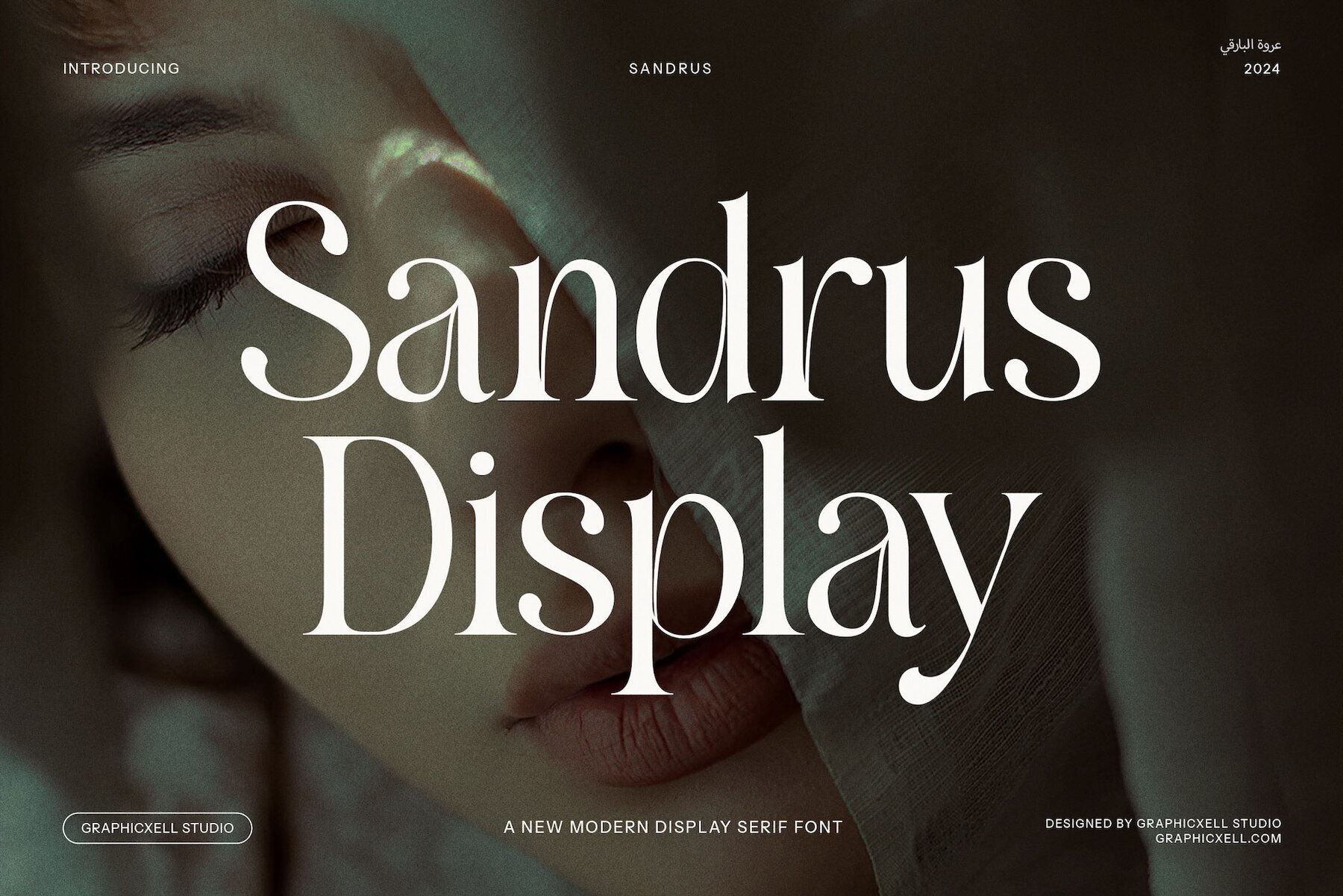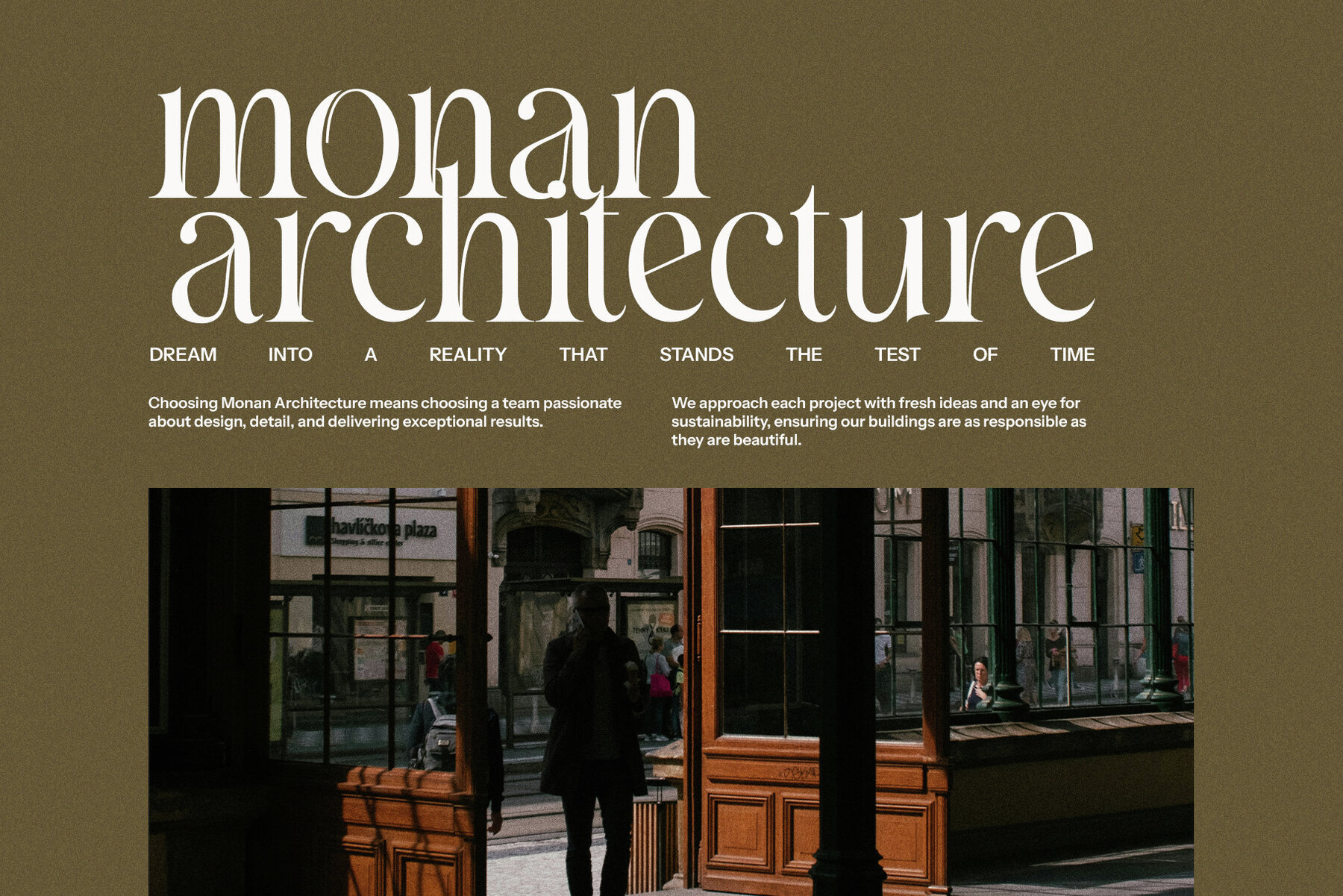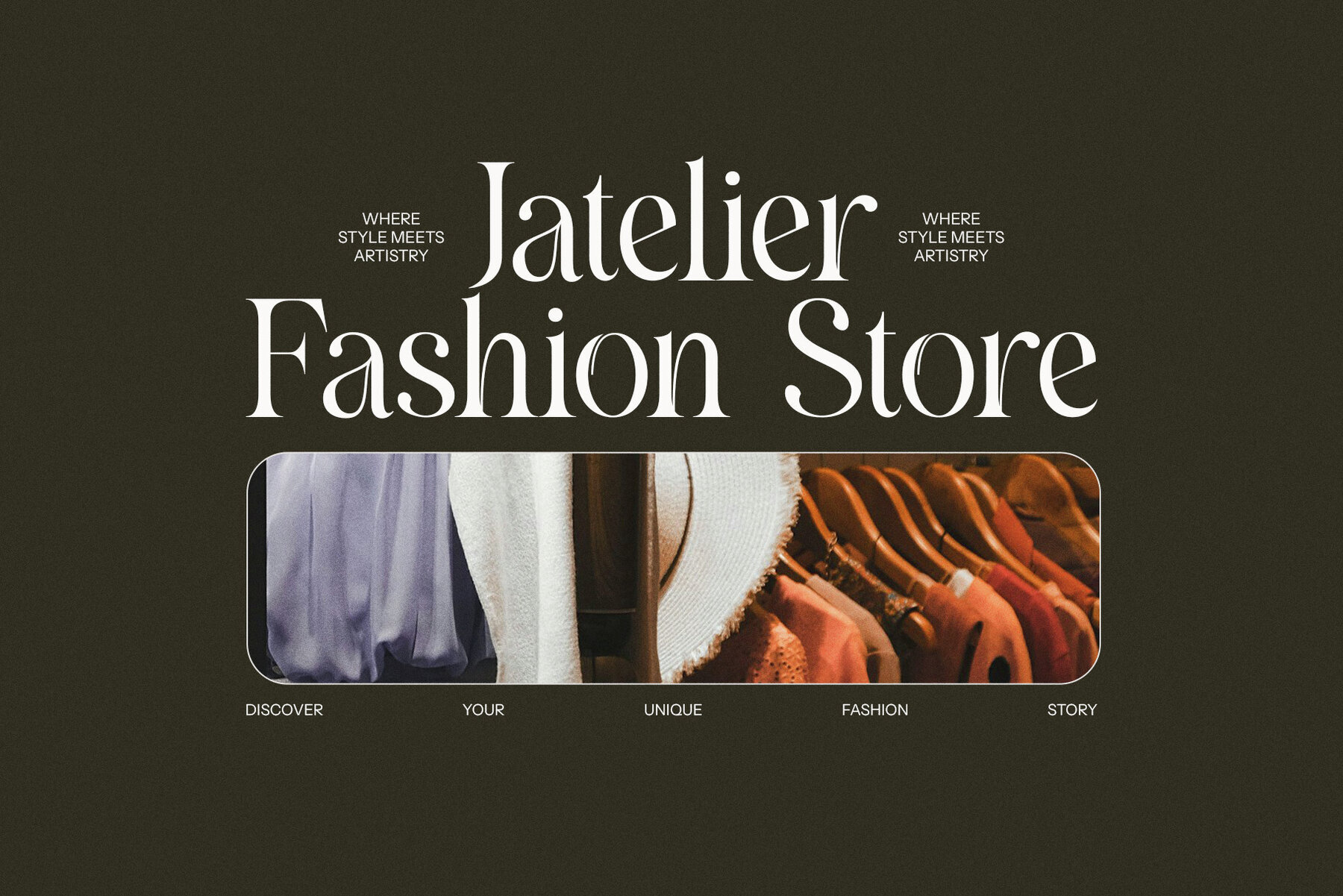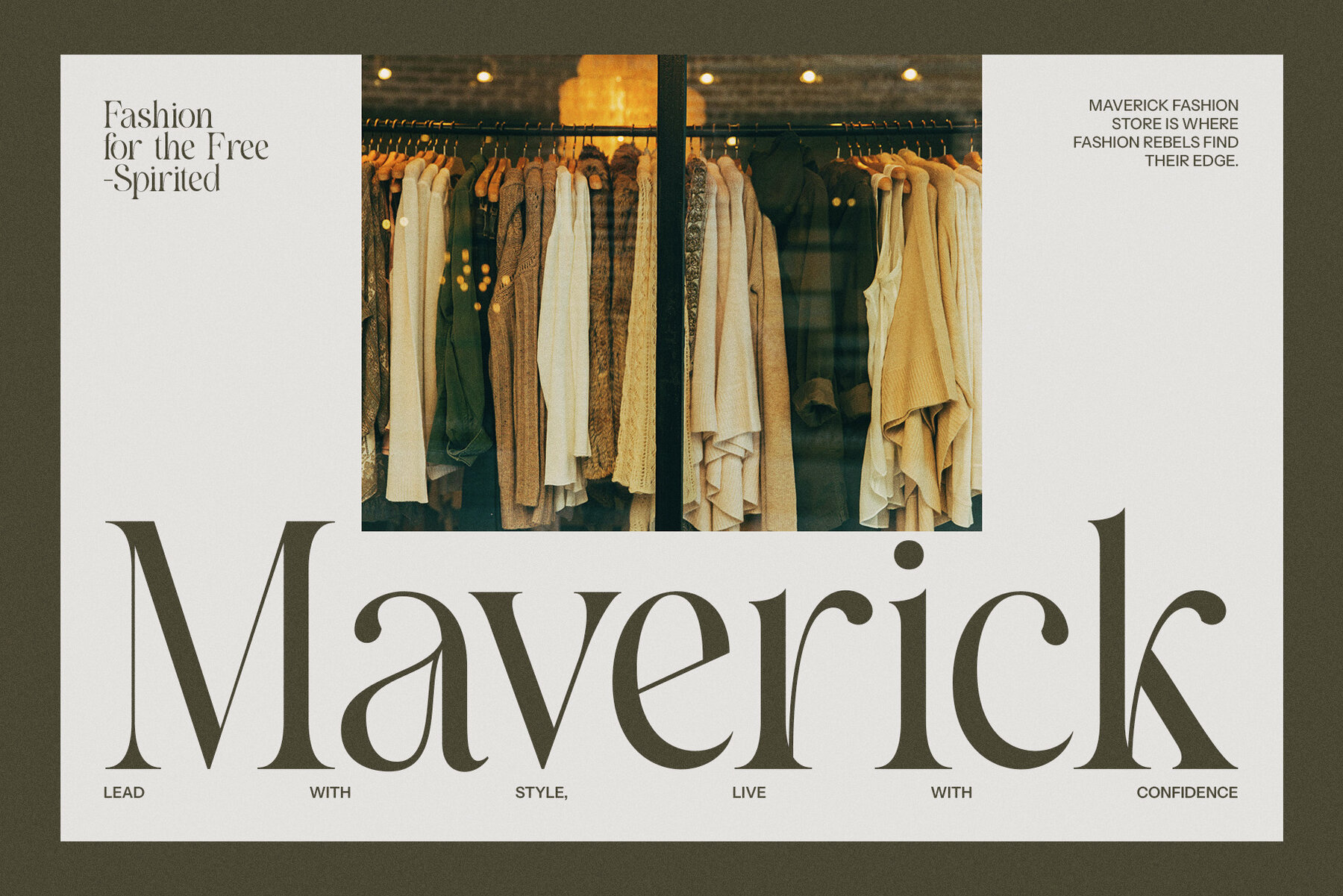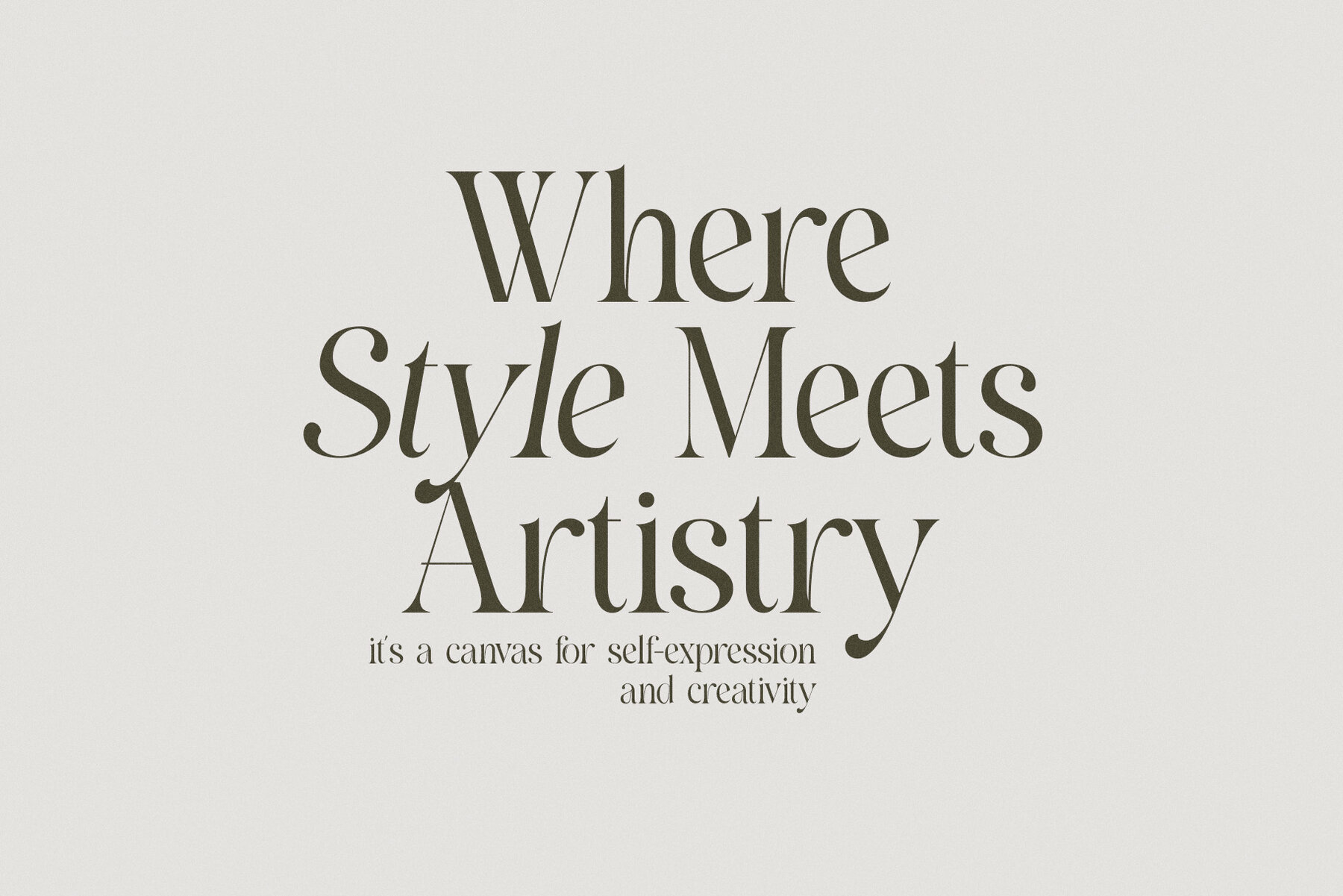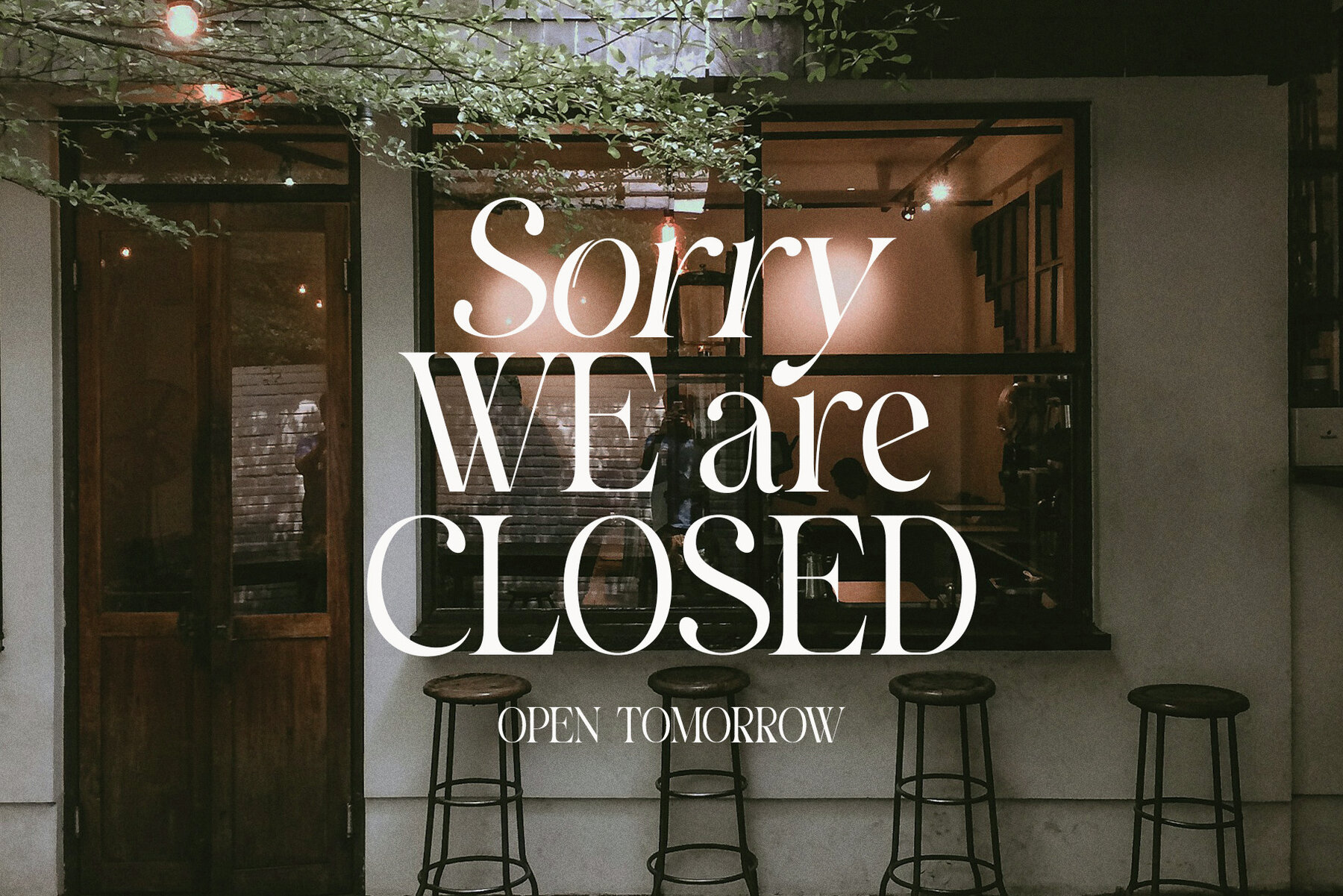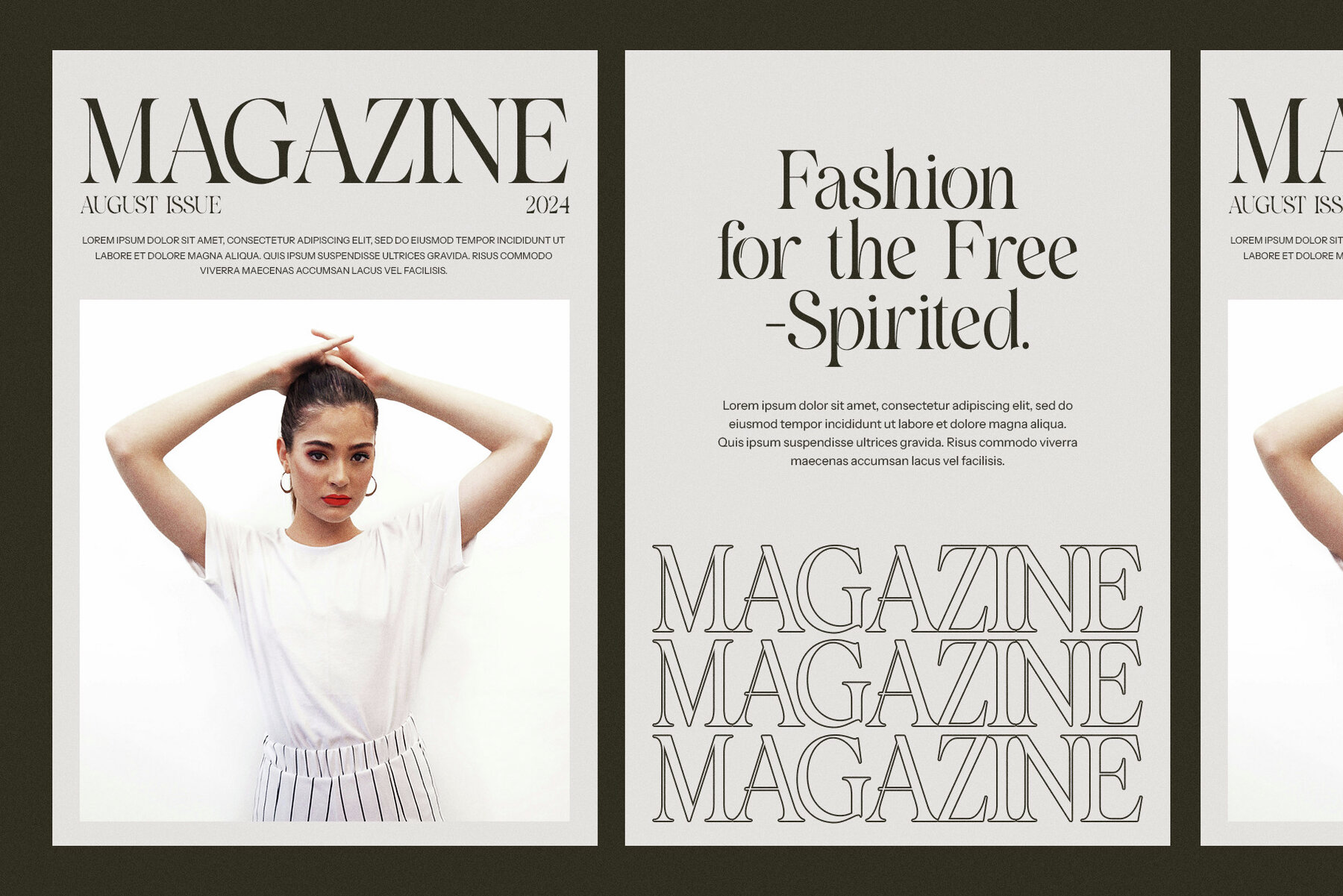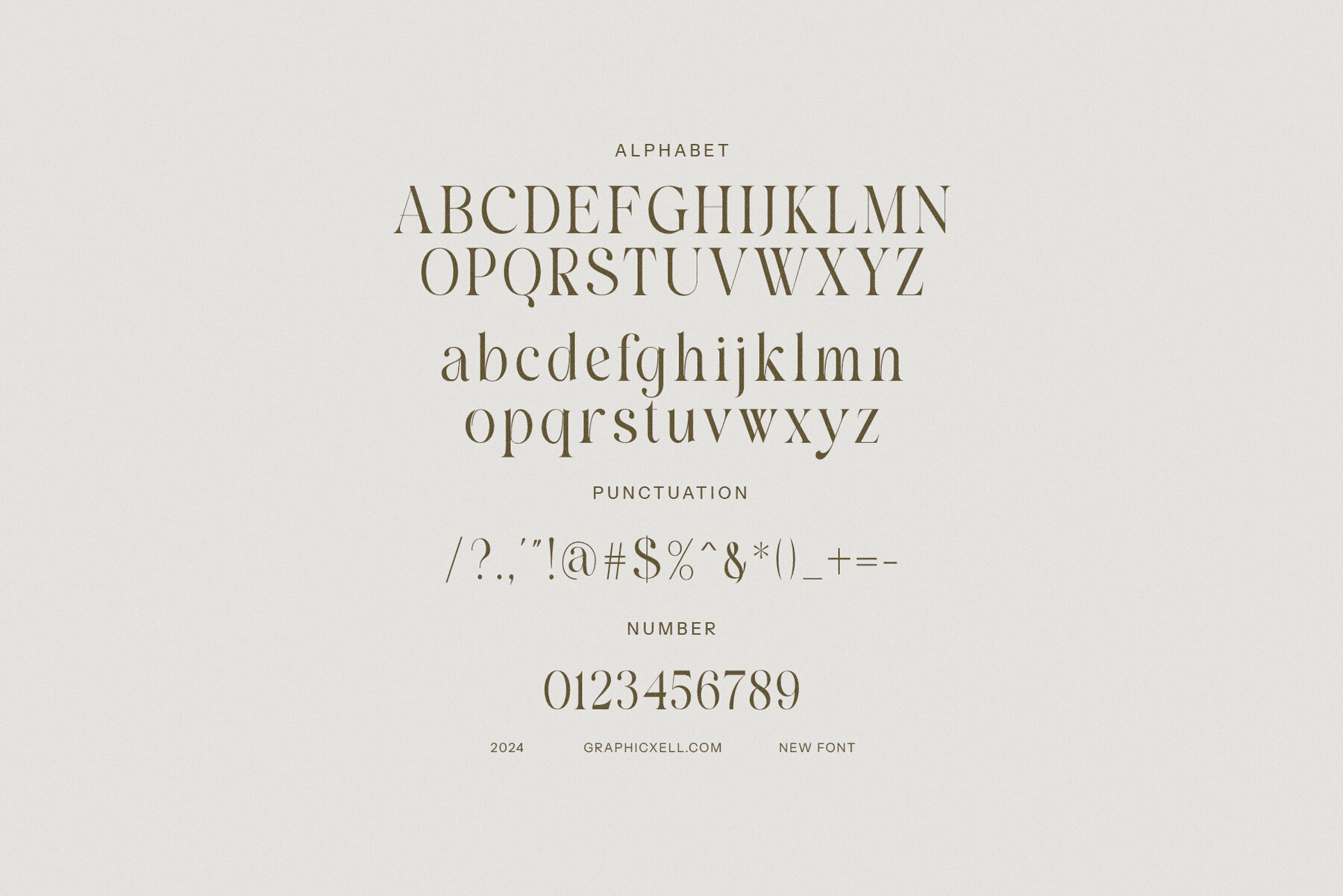
Sandrus
Sandrus Elegant Display Serif Font is a typeface that perfectly marries modern sophistication with a hint of vintage charm. Designed for those who value refined style and timeless beauty, Sandrus offers a versatile aesthetic that seamlessly enhances a variety of design projects. With its graceful serifs and elegant curves, Sandrus is an excellent choice for logo design, branding, and high-end product packaging. It imparts a sophisticated yet approachable feel, making it ideal for luxury boutiques, exclusive events, or premium food brands.
Beyond branding and logos, Sandrus excels in magazine layouts, advertisements, and website typography, providing both beauty and readability across digital and print platforms. Its design, with subtle vintage influences, makes it perfect for projects that blend retro sophistication with modern appeal. Whether crafting fashion, lifestyle, or luxury product designs, Sandrus offers a high-end aesthetic that adds a distinctive, lasting impact. Choose Sandrus to make a bold statement with elegance and style in your next project.